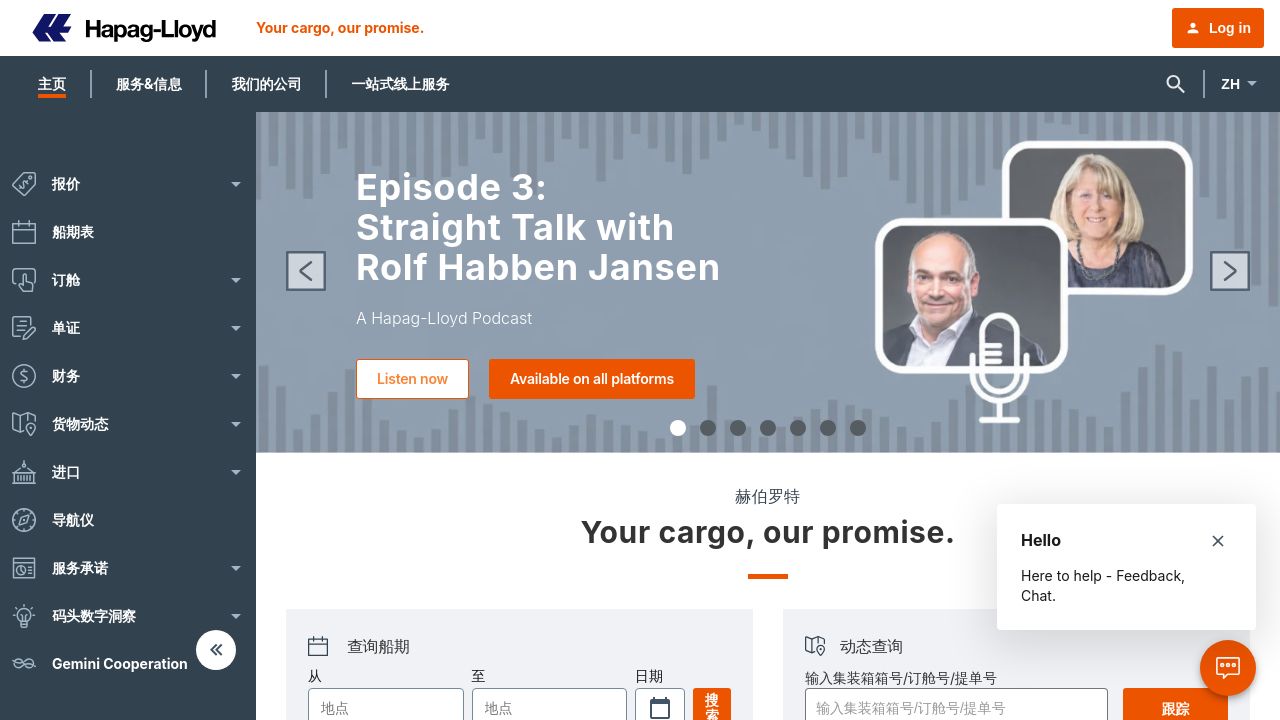
Hapag-Lloyd, a leader in global container shipping, employs Helvetica Neue as its primary font, reflecting the brand's focus on reliability and clarity in communication. This choice is complemented by fallback options like Arial and Segoe UI, which ensure legibility across various platforms. The typography conveys a sense of authority, crucial for an audience involved in logistics and international trade, while also maintaining a professional appearance that aligns with the company's identity.
Hapag-Lloyd primarily uses Helvetica Neue in their branding, specifically the 400 weight, to convey clarity and professionalism. Their fallback fonts include Arial, Helvetica, Segoe UI, and Verdana.
Helvetica Neue offers a clean, modern look that is versatile for both digital and print use. Compared to Arial, it has more refined spacing and character shapes, making it a preferred choice for brands like Hapag-Lloyd.
Hapag-Lloyd primarily utilizes the 400 weight of Helvetica Neue. For other fonts like Arial and Segoe UI, various weights are available, providing flexibility in design.